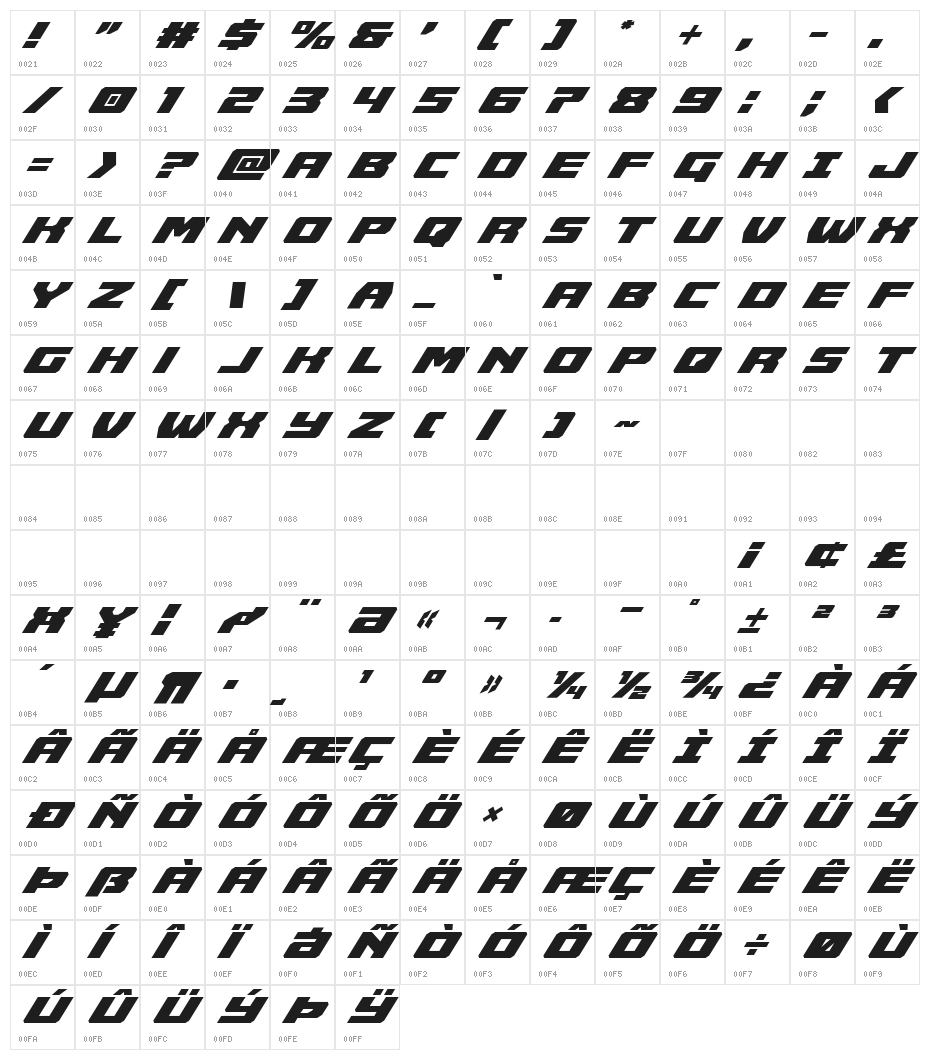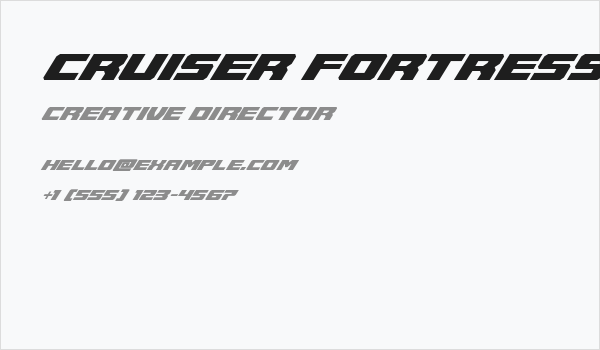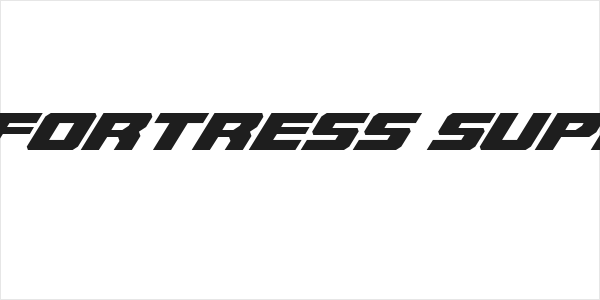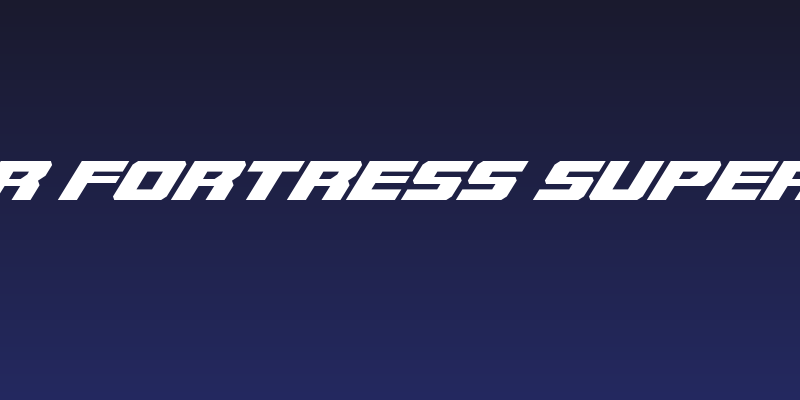
Cruiser Fortress Super-Italic Font
Cruiser Fortress Super-Italic Description
This font features a bold, italicized style with a strong, angular design that conveys a sense of speed and power. The characters are sharply defined with a futuristic aesthetic, making them ideal for projects that require a dynamic and modern look. The uppercase and lowercase letters maintain a consistent slant, enhancing the sense of motion. The numerals and special characters are equally bold and stylized, ensuring uniformity across all text elements. The overall appearance is both striking and legible, suitable for attention-grabbing headlines or branding materials.
Proposed ProjectsIdeal for sports branding, automotive advertisements, video game titles, and sci-fi themed projects.